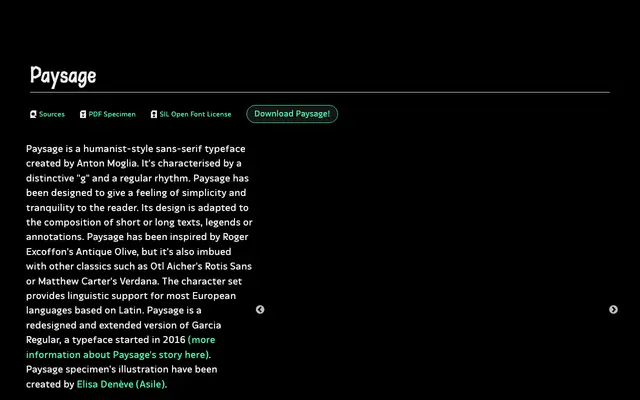
Paysage
Tunera · Anton Moglia · 2020
A humanist sans-serif by Anton Moglia, drawing on Antique Olive, Rotis Sans and Verdana to produce a quiet, text-friendly typeface in four weights.
Originally begun in 2016 as Garcia Regular, the typeface was redesigned, extended and renamed Paysage in 2020. Its four weights give enough range for typographic hierarchy, while the design's regular rhythm and distinctive double-storey 'g' make it suitable for running text, captions and annotations alike. Latin-script coverage spans most European languages, and the font is distributed under the SIL Open Font Licence.
Described explicitly as a humanist-style sans-serif, with influences from Antique Olive, Rotis Sans and Verdana — all humanist or humanist-adjacent designs. The distinctive double-storey 'g' and regular rhythm further confirm the humanist classification.